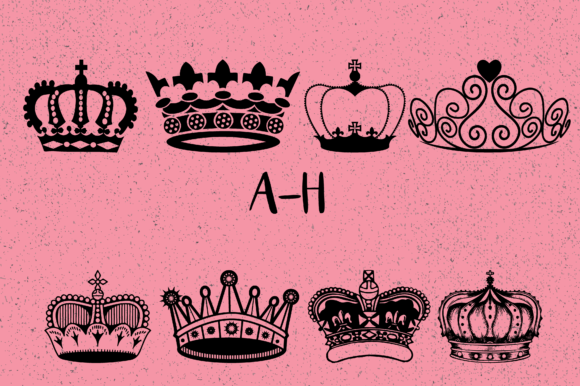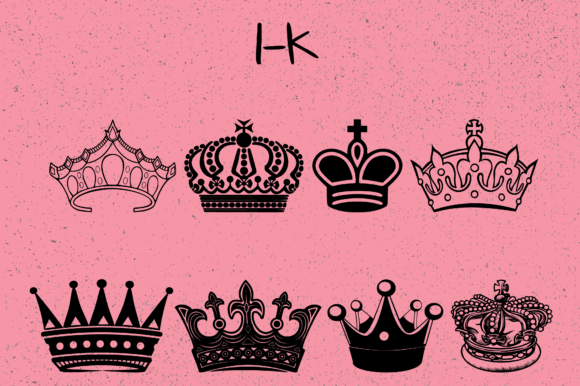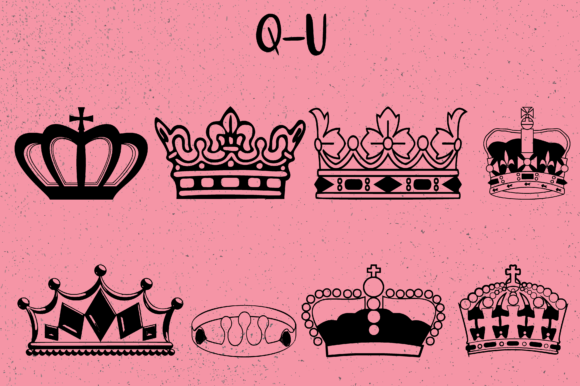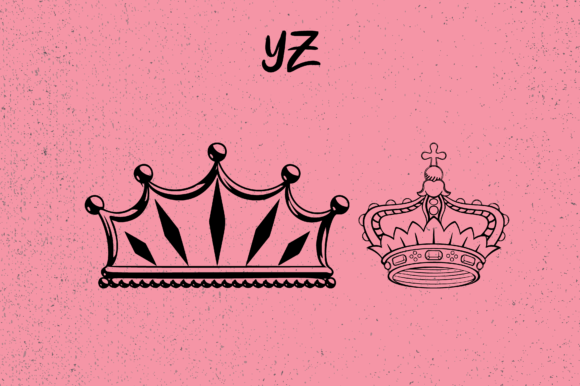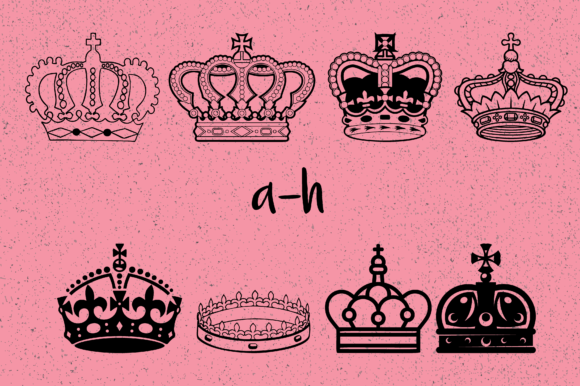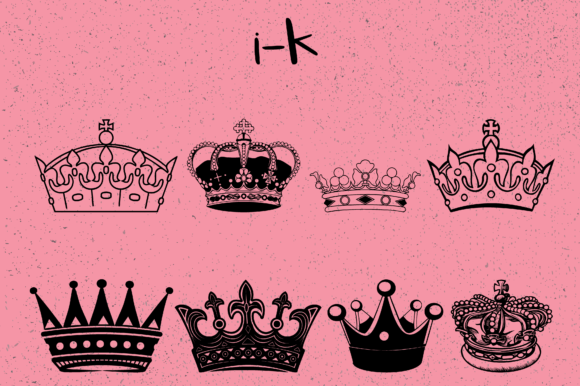
Crowns Font: The Ultimate Dingbats Typeface for Designers and Crafters
Are you a designer or crafter looking for a unique and creative way to add a touch of royalty to your projects? Look no further than Crowns Font, a dingbats typeface designed to help you generate up to 60 unique crowns doodles by typing letters and numbers. In this article, we’ll explore the features and benefits of Crowns Font, and how it can elevate your designs and crafts to the next level.
What is Crowns Font?
Crowns Font is a specially designed dingbats typeface that allows you to create a wide range of crown designs by simply typing letters and numbers. This innovative font is perfect for designers and crafters who want to add a touch of elegance and sophistication to their projects. With Crowns Font, you can create up to 60 unique crown doodles, each with its own distinct character and style.
Features of Crowns Font
- Unique Crown Designs: Crowns Font offers up to 60 unique crown designs, each created by typing a specific letter or number.
- Easy to Use: Simply type a letter or number, and Crowns Font will generate a beautiful crown design for you.
- Customizable: With a wide range of crown designs to choose from, you can mix and match to create your own unique designs.
- Dingbats Typeface: Crowns Font is a dingbats typeface, making it easy to use and integrate into your designs.
Benefits of Using Crowns Font
So why choose Crowns Font for your design or crafting projects? Here are just a few benefits of using this innovative font:
- Save Time: With Crowns Font, you can create beautiful crown designs in minutes, saving you time and effort.
- Increase Creativity: The wide range of crown designs offered by Crowns Font can help inspire your creativity and take your designs to the next level.
- Add a Touch of Elegance: Crowns Font is perfect for adding a touch of elegance and sophistication to your projects, making them stand out from the crowd.
- Perfect for Designers and Crafters: Whether you’re a designer or crafter, Crowns Font is the perfect tool for adding a unique and creative touch to your projects.
Examples of Crowns Font in Action
Here are a few examples of how you can use Crowns Font in your design and crafting projects:
- Wedding Invitations: Add a touch of elegance to your wedding invitations with beautiful crown designs.
- Party Decorations: Use Crowns Font to create custom party decorations, such as crowns for party hats or banners.
- Stationery: Add a touch of sophistication to your stationery with custom crown designs.
- Crafting Projects: Use Crowns Font to add a unique and creative touch to your crafting projects, such as scrapbooking or card making.